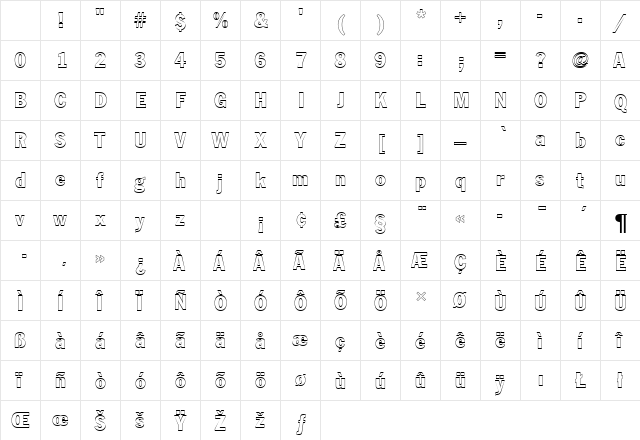
FranklinGotTRegConOu1 Regular Free Font
FranklinGotTRegConOu1 Regular
Complete FranklinGotTRegConOu1 Regular glyph index. Displaying only characters natively supported by FranklinGotTRegConOu1 Regular font.
Design Context for FranklinGotTRegConOu1
FranklinGotTRegConOu1 is a composed and adaptable typeface that performs quietly and consistently across a wide range of design contexts.